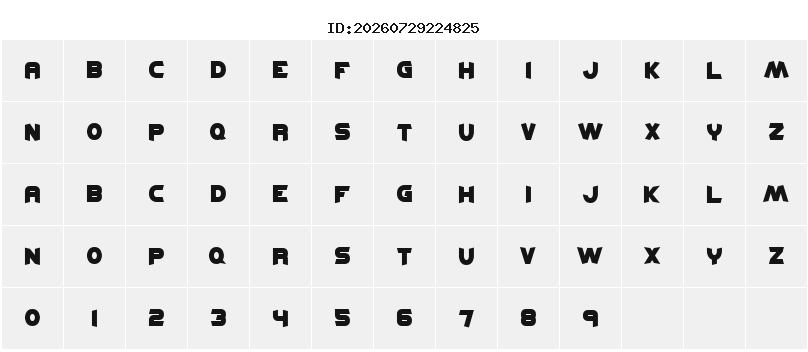
Kickflip (BRK) Preview
• Font Name: Kickflip (BRK)
• Full Font Name: Kickflip -BRK-
About Kickflip (BRK).ttf
Kickflip (BRK).ttf is a modern, elegant sans-serif font designed for ultimate readability and visual harmony. Perfect for branding, headlines, web design, and print materials.